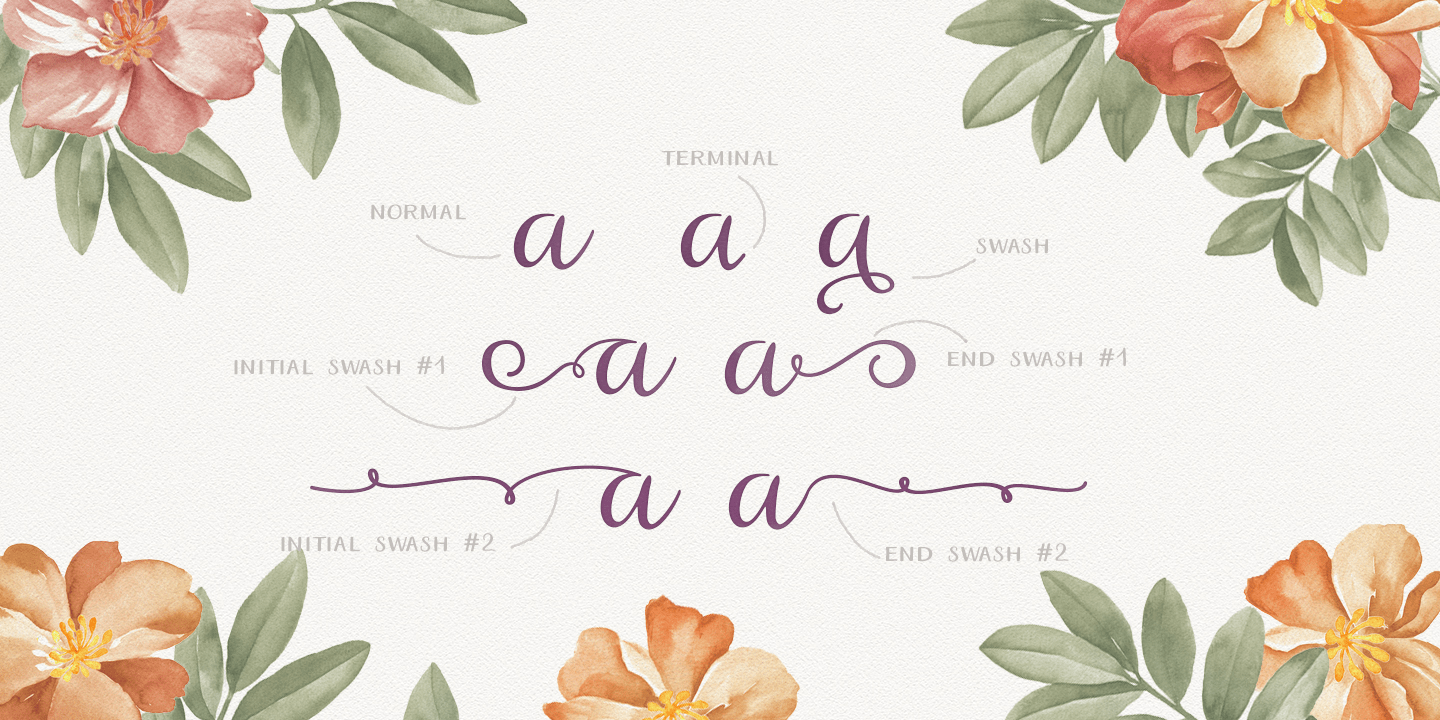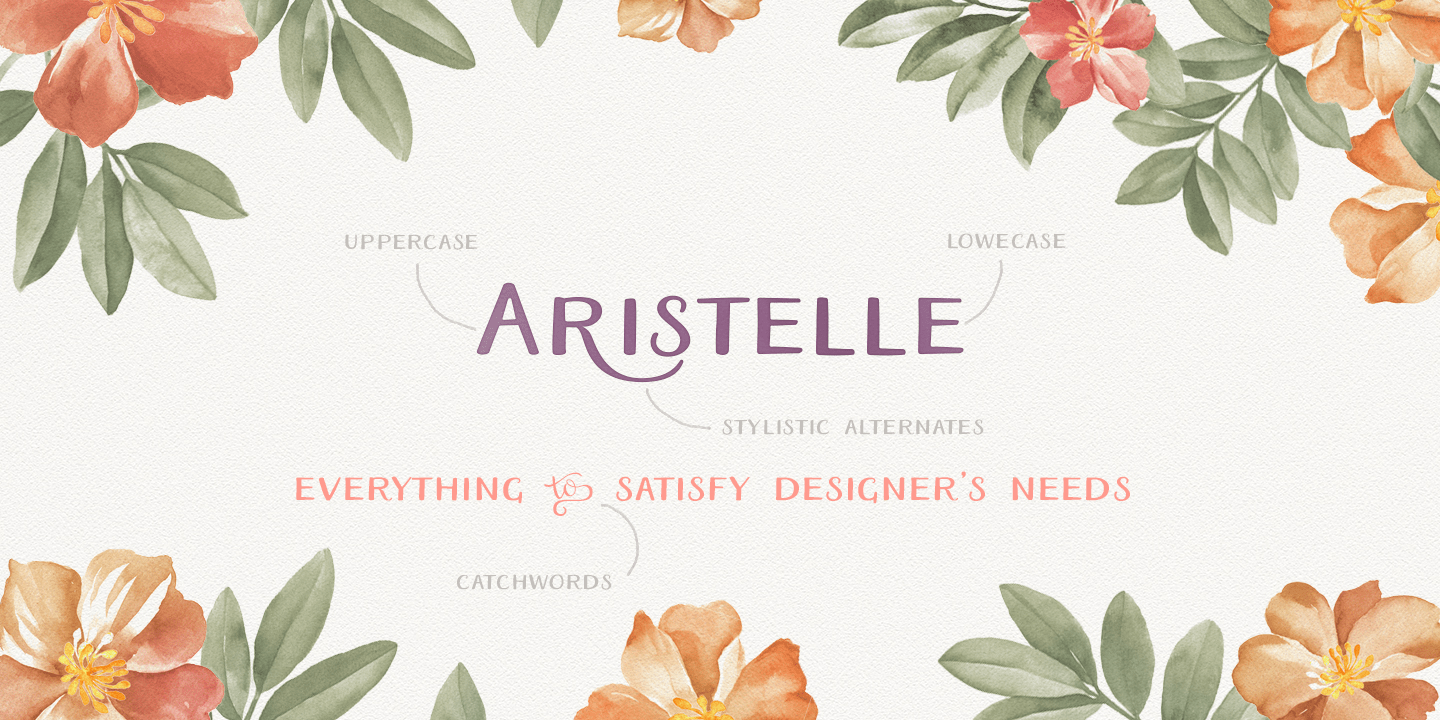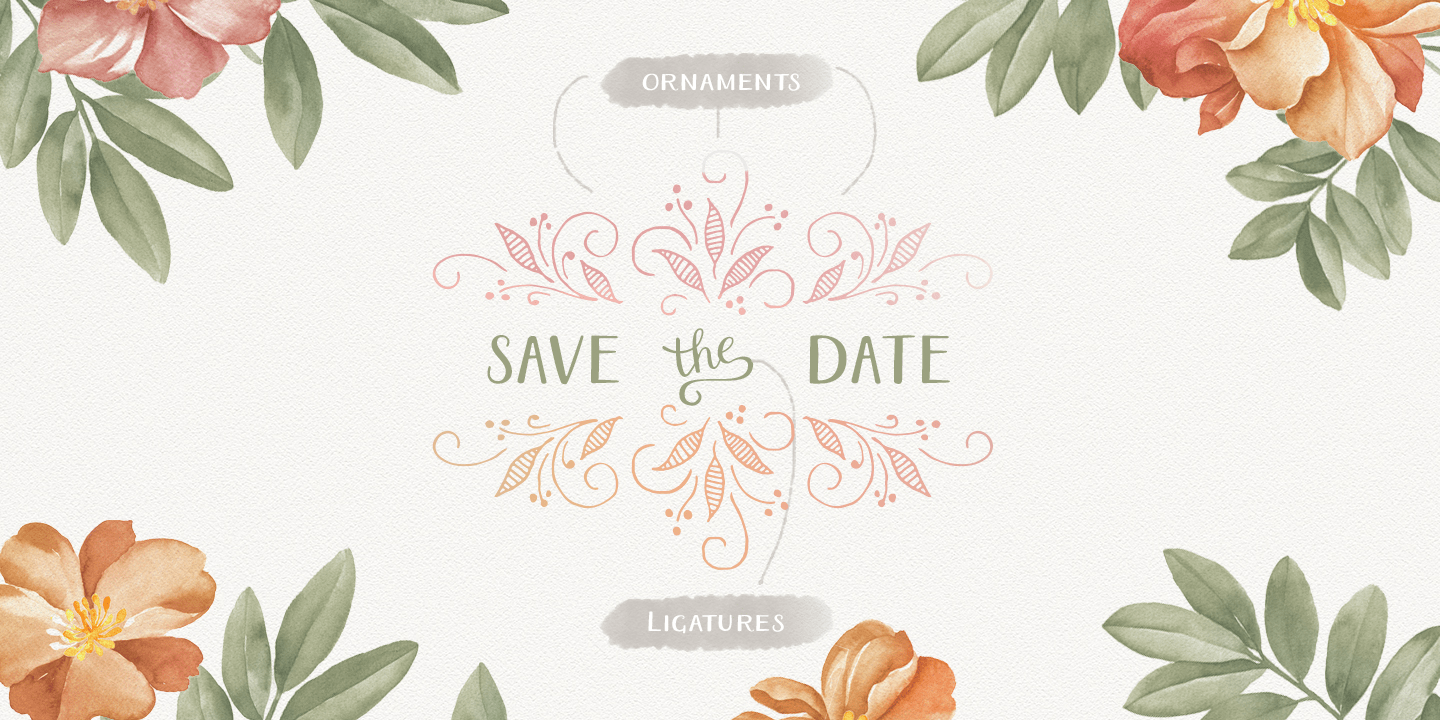
Aristelle Family is a beautiful, hand-lettered script that was created using Leonardt III EF nib. Aristelle Script is full of OpenType features such as initial and terminal swashes, ligatures, and ornaments and is best used in an OpenType-aware software.…